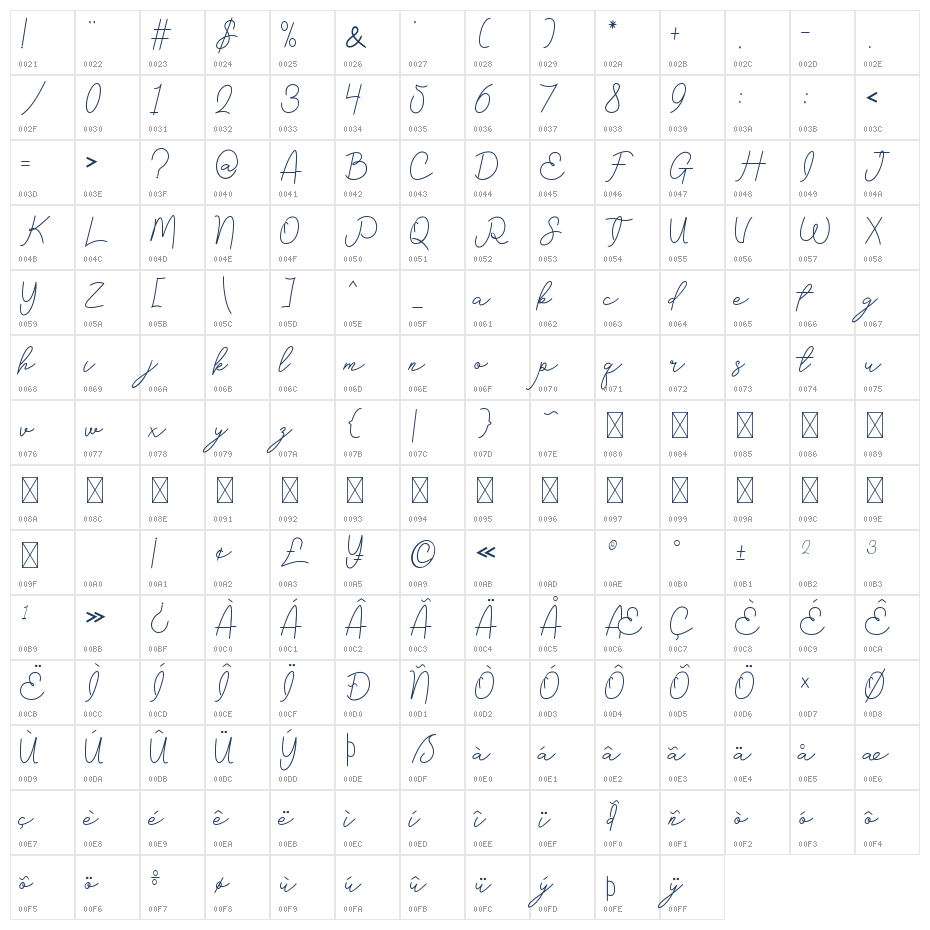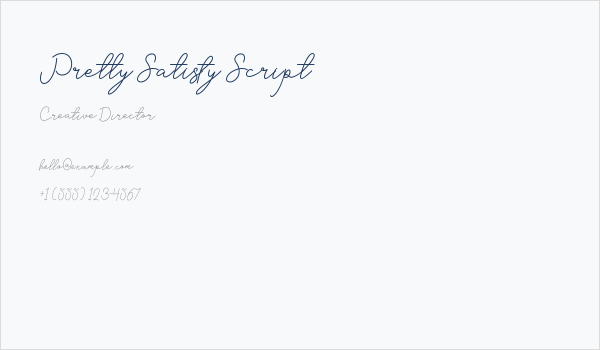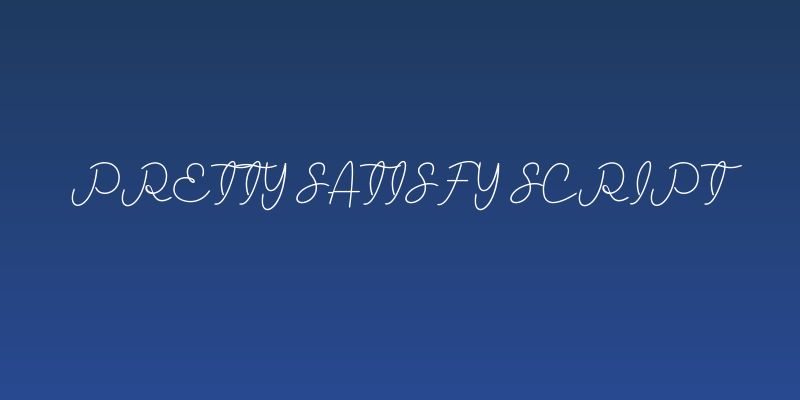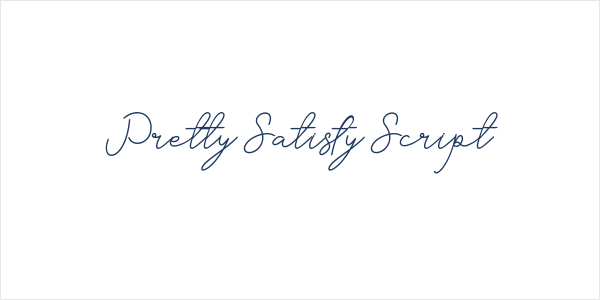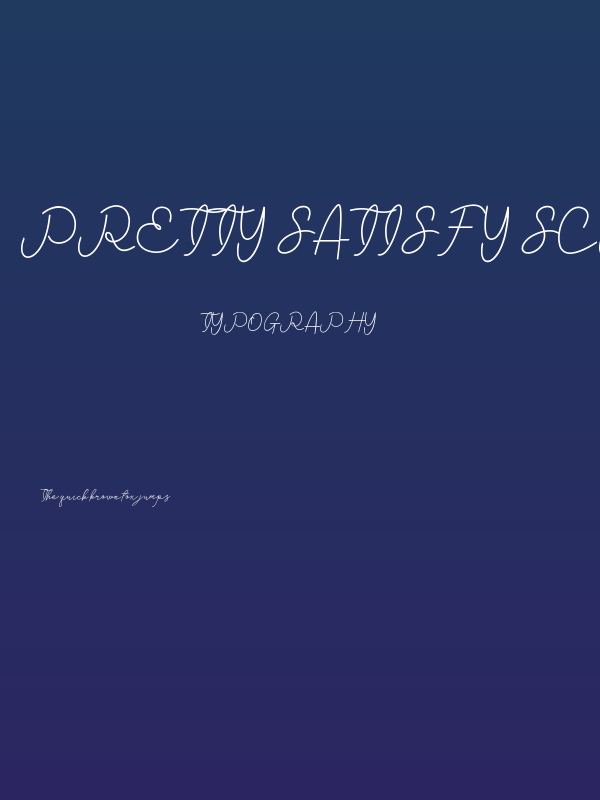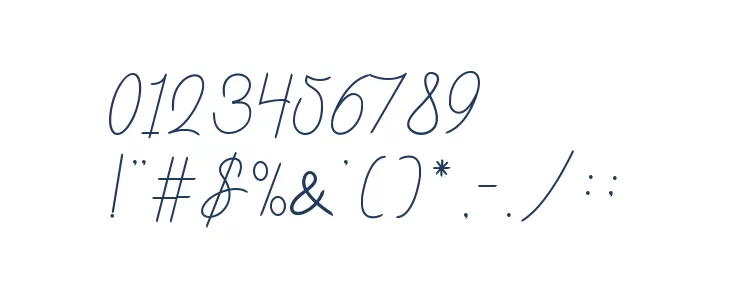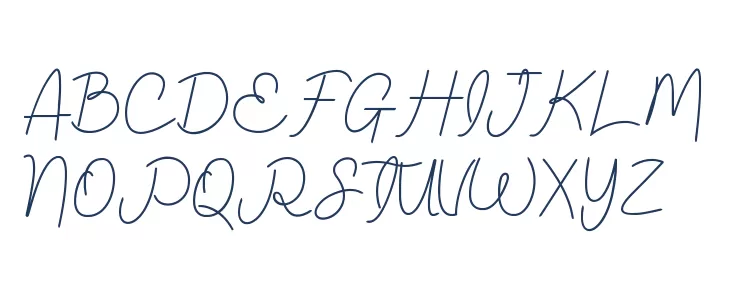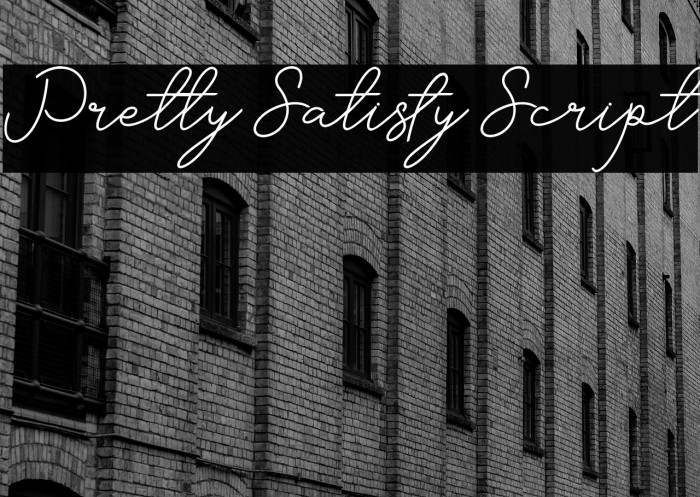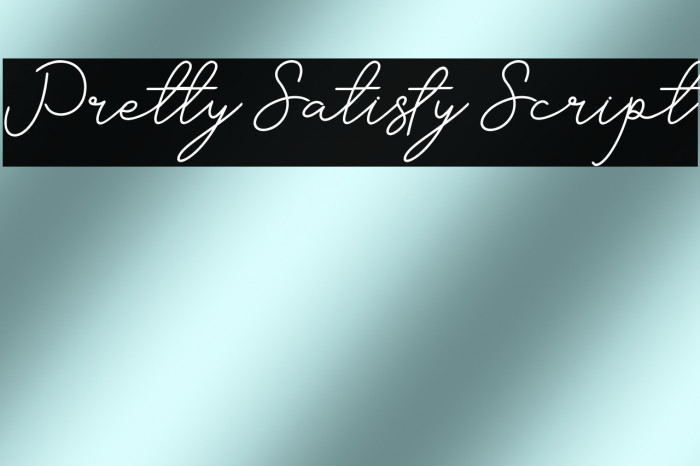
Pretty Satisfy Script Font
A handwritten, cursive script font with a casual and elegant style, featuring thin, flowing lines and a slightly slanted appearance.
| Overall Style | Casual, Elegant, Handwritten |
| Use Case | Invitations, greeting cards, personal branding, logos, decorative headings |